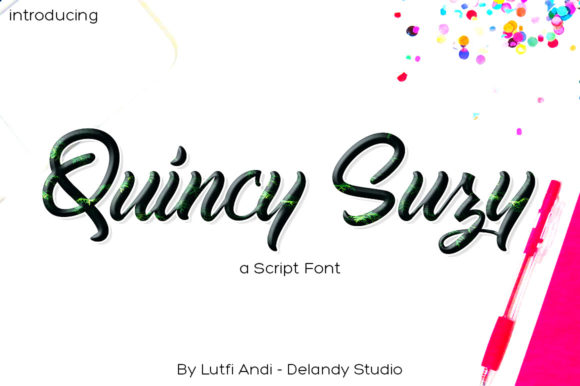
**Indulge in the Allure of Quincy Suzy: The Quintessential Font for Coastal Charm**
Escape to a seaside sanctuary with Quincy Suzy, a captivating script font that embodies the essence of sun-kissed beaches and tranquil ocean breezes. Its delicate strokes and graceful curves evoke the timeless beauty of handwritten notes penned on sandy shores, inviting you to create designs that shimmer with coastal allure.
Whether you're crafting elegant wedding invitations that whisper promises of love amidst the crashing waves, or designing exquisite thank you cards adorned with heartfelt gratitude, Quincy Suzy's versatile charm knows no bounds. Its intricate swirls and flourishes bring a touch of sophistication to every project, transforming ordinary designs into captivating works of art.
Unleash your creativity with Quincy Suzy's boundless potential. Let your imagination soar as you design captivating greeting cards that convey heartfelt messages with a personal touch, or create striking logos that embody the spirit of coastal living. Quincy Suzy's adaptability extends to business cards, where it effortlessly conveys professionalism with a hint of seaside flair.
Immerse yourself in the world of Quincy Suzy, where every stroke evokes the serenity and beauty of the ocean. Its enchanting grace will captivate your audience, leaving an unforgettable impression that lingers like the scent of salty air on sun-kissed skin.
**Why Quincy Suzy is the Perfect Choice for Your Coastal Creations:**
* **Ethereal Beauty:** Its delicate strokes and graceful curves create an enchanting aesthetic that evokes the beauty of handwritten notes on sandy shores.
* **Versatile Allure:** From wedding invitations to business cards, Quincy Suzy seamlessly adapts to a wide range of design projects, adding a touch of sophistication to each one.
* **Coastal Charm:** Its intricate swirls and flourishes embody the spirit of coastal living, bringing a refreshing breeze to your designs.
* **Unleash Creativity:** Quincy Suzy's boundless potential empowers you to create captivating designs that leave a lasting impression.
Embrace the allure of Quincy Suzy and elevate your designs to new heights. Let its coastal charm inspire your creativity and create unforgettable designs that capture the essence of sun-drenched shores.